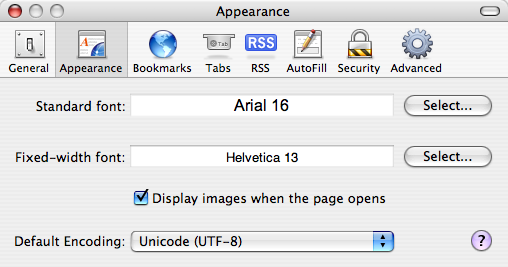
So everything appears to be working alright except for some of my fontage in Safari. I've rebooted and such... I don't really know a lot about fonts though. Before I installed Tiger the fonts were much more defined and now they look sorta sloppy. Anybody have any ideas? This is off an "Upgrade" install but I have also looked at 2 "wipe and installs" and it looks the same... It just looks like there is some "fuzz" at the bottom of some of the letters.
yup. Im getting the same thing. Anyone find a way to fix it? I tried reducing the font smoothing and such, but that didnt help.
That's weird, I seem to be ok.
Could be the font you are using, I get it too btw.
If you had MS Office installed on Panther, then web browsers etc. would have use the MS fonts supplied with that, which, IMO, are better than the Apple supplied fonts.
I had this exact problem too from a clean install. I tried changing the fonts that are used and it didn't change anything.
But it did get fixed for me after i rebooted. So i'm surprised that its not fixed for you yet. I can't remember if i changed anything before the reboot, but i believe that i have everything that i messd with back to the default settings.
It was a system wide problem for me, not just safari, because my irc client also had these thick and messy fonts for everything.
looks normal to me. That's what it looks like on my computer and I have Panther.
Yeah....i had this too.
It's caused by the new way OS X handles font smoothing.
To make the fonts look like they did in Panther go to system preferences --> appearance --> and for Font Smoothing style, set it for Standard, instead of Automatic.
Not sure why the default font smoothing for 10.4 is Automatic...it's a bit too much for me, and many others, it seems.
I tried playing with the font smoothing to no effect, also restarting with the same results... Certainly didn't have this problem pre-Tiger, so not really sure what to do at this point...